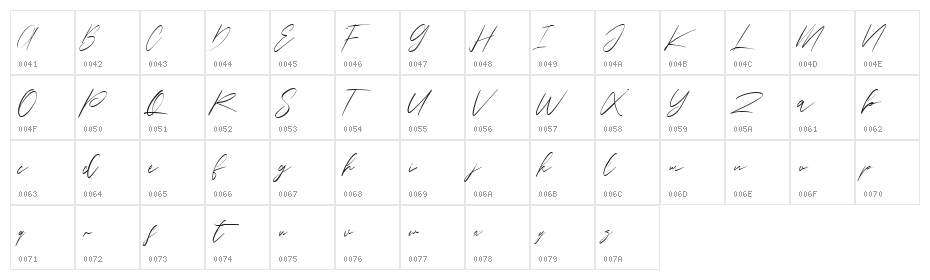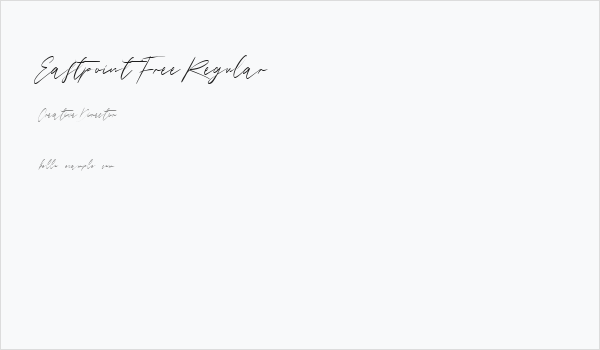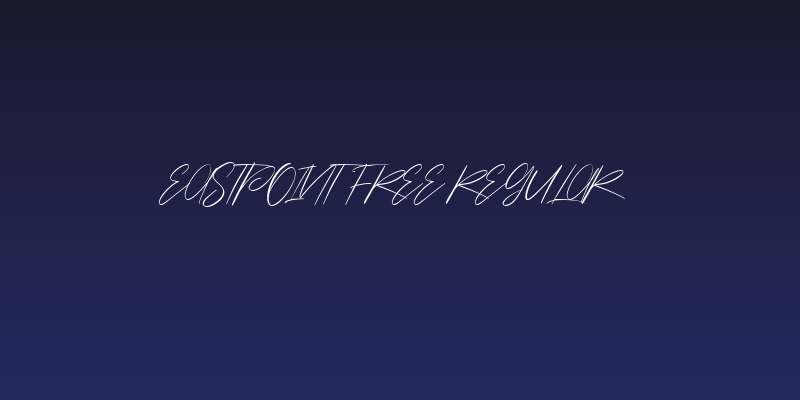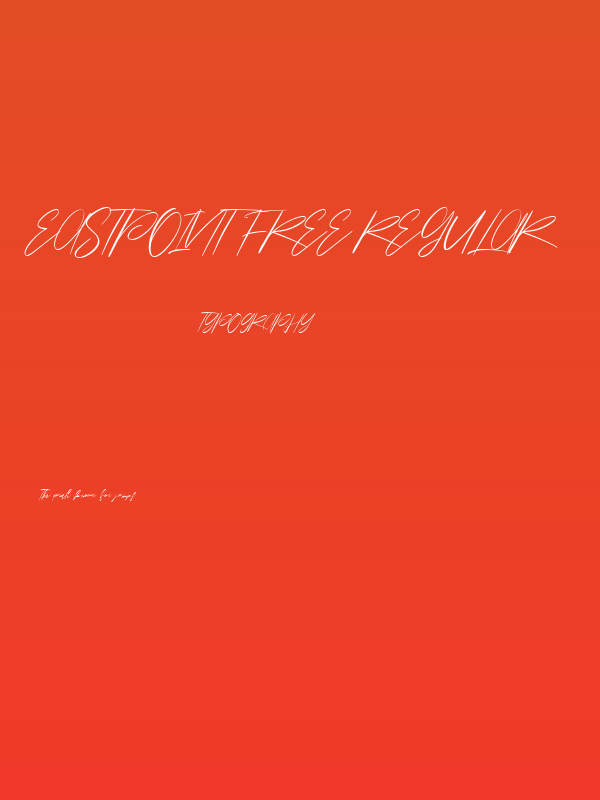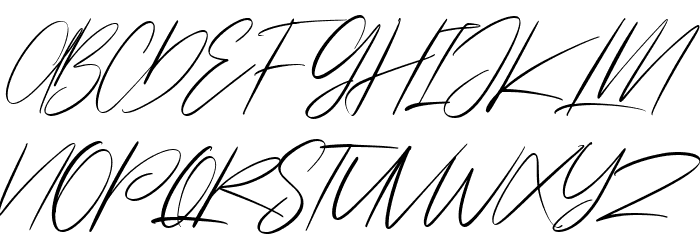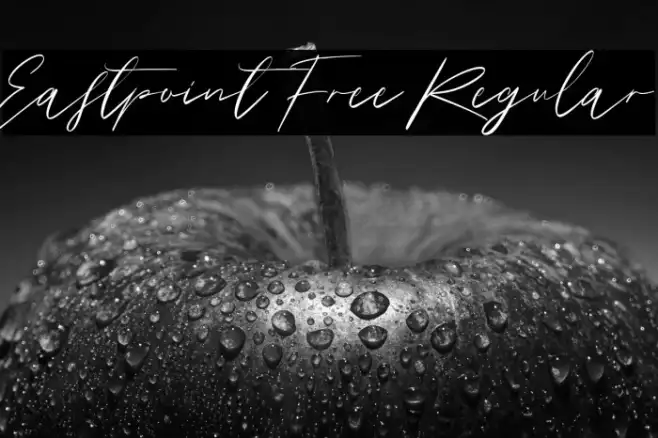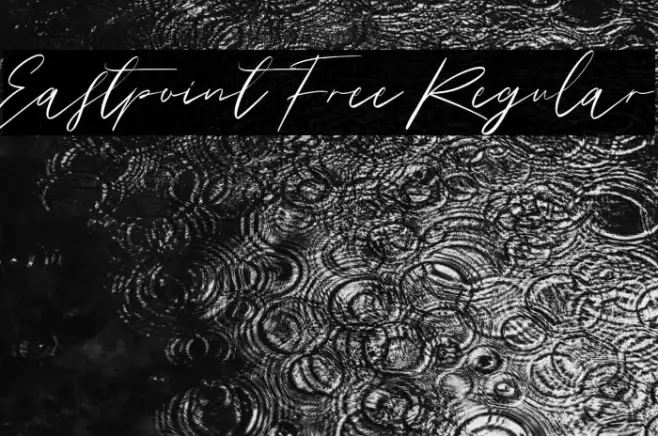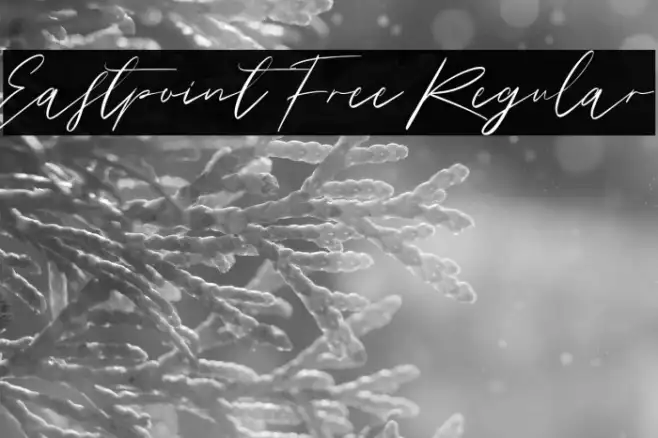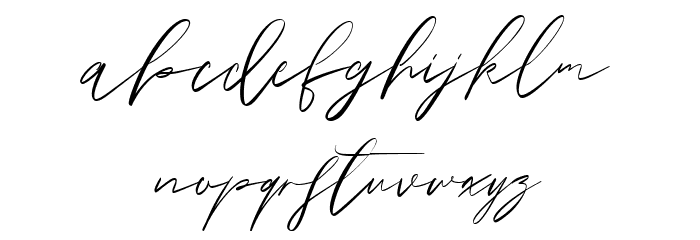
Eastpoint Free Regular Font
Eastpoint Free Regular Description
This font features an elegant, flowing script style with a modern touch. The characters are elongated and connected, giving a sense of fluidity and motion. The uppercase letters are bold and dynamic, with sweeping curves and sharp angles, while the lowercase letters maintain a consistent flow with gentle loops and smooth transitions. The overall appearance is sophisticated and stylish, making it ideal for creative and expressive design projects. The font's thin strokes and high contrast add to its refined and delicate aesthetic, perfect for adding a personal touch to any design.